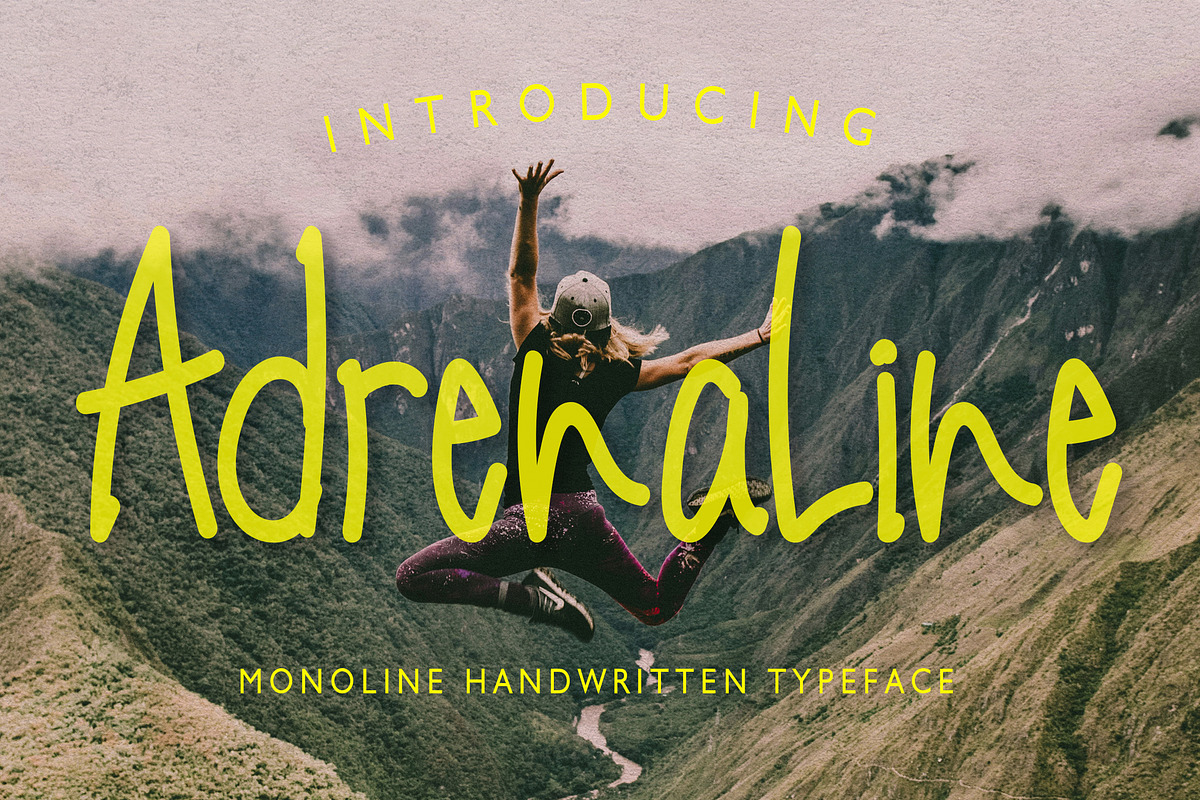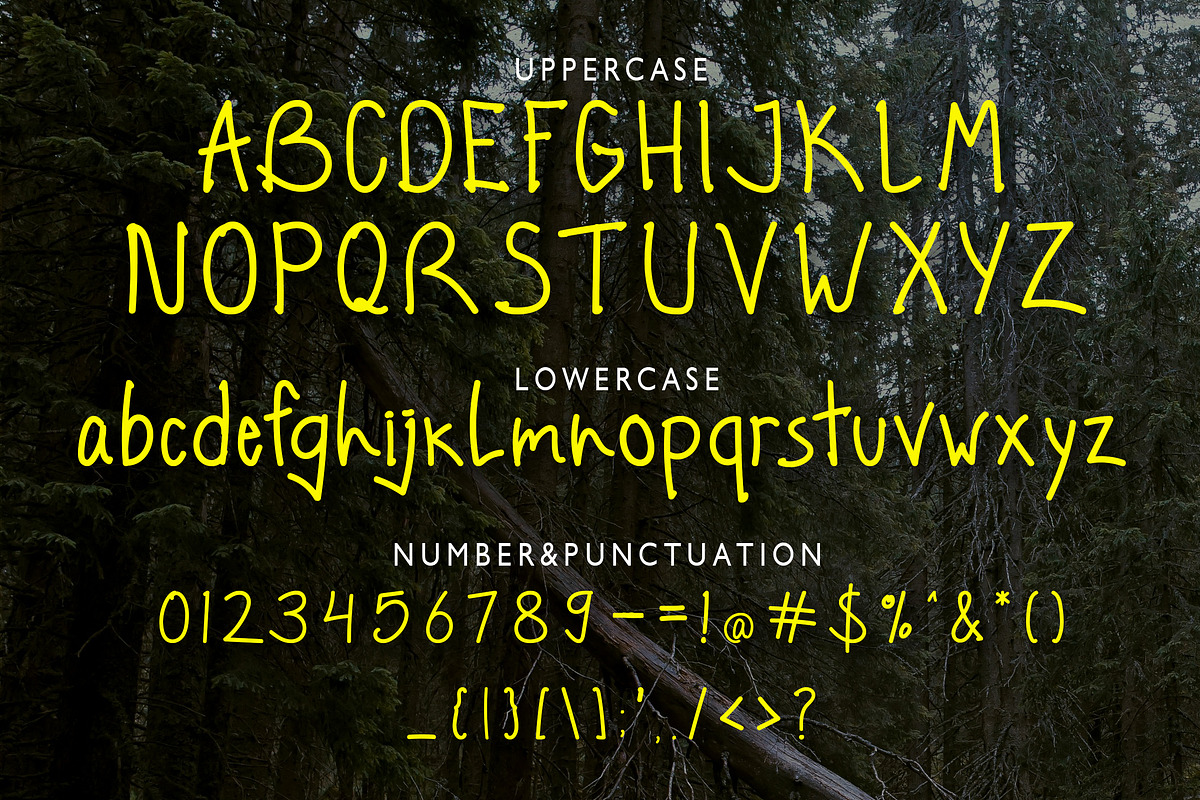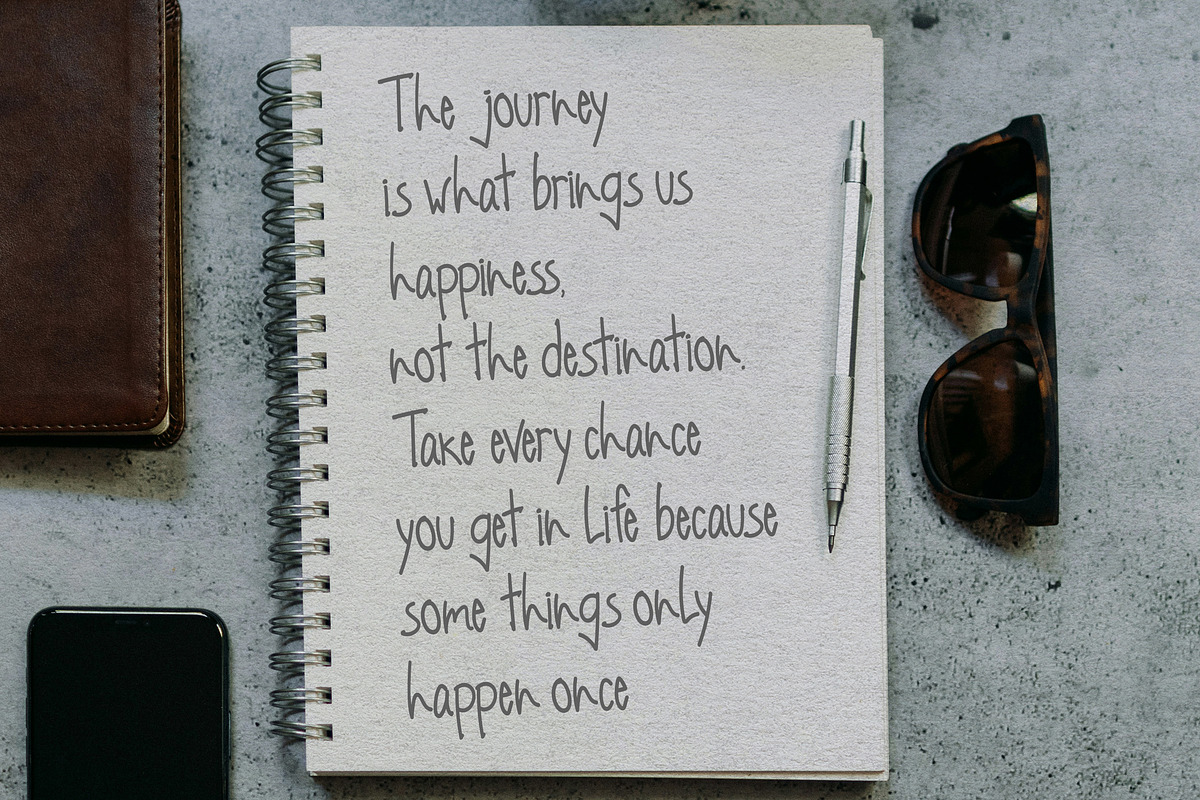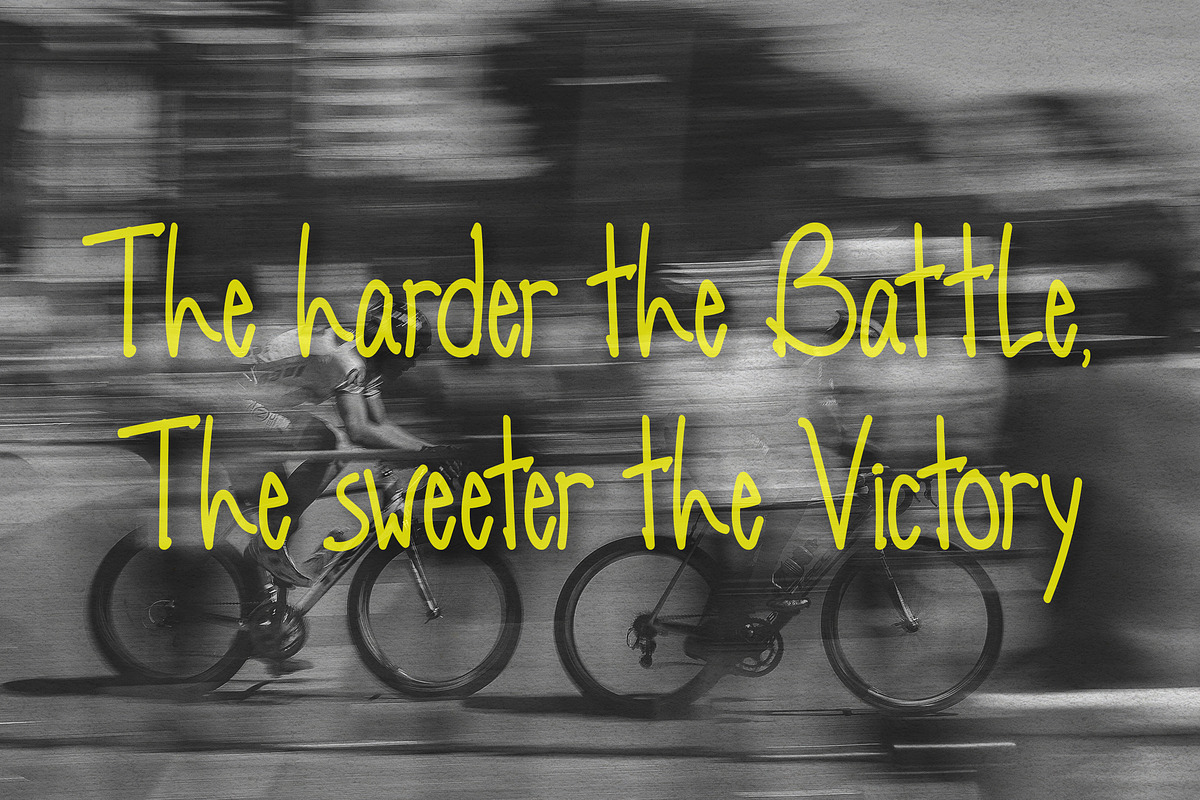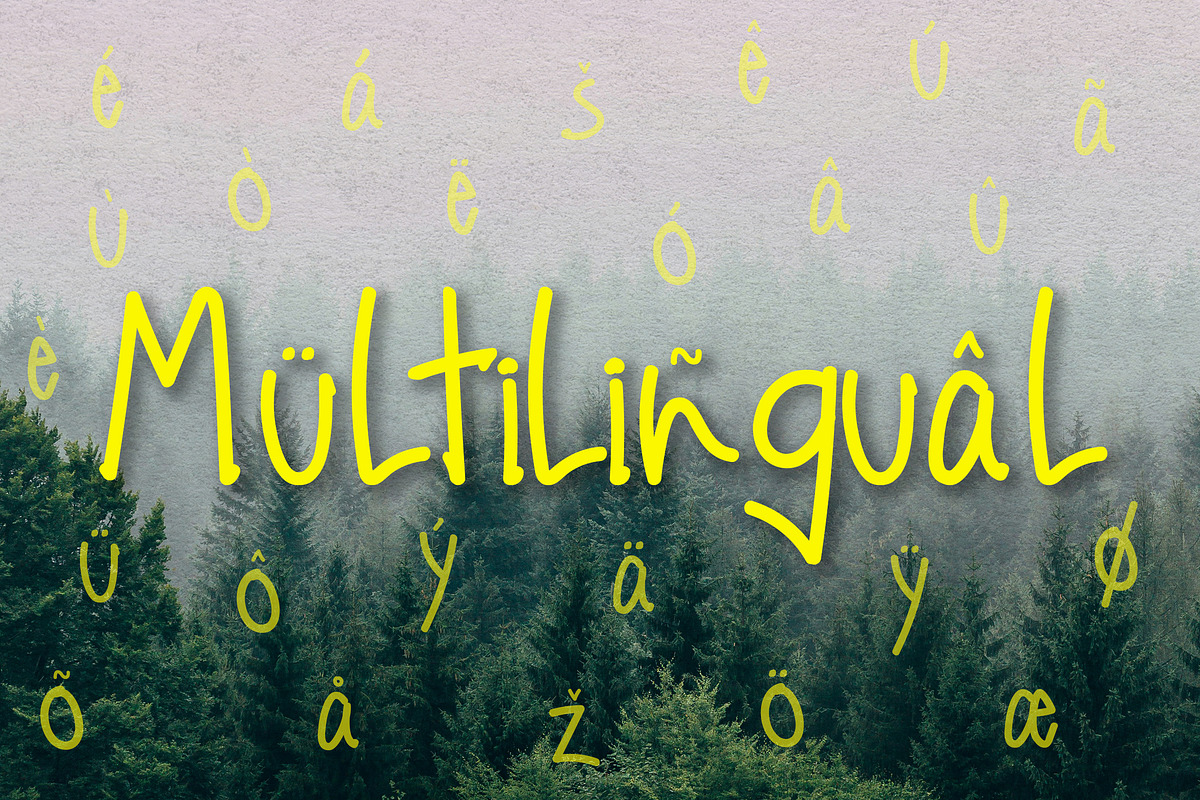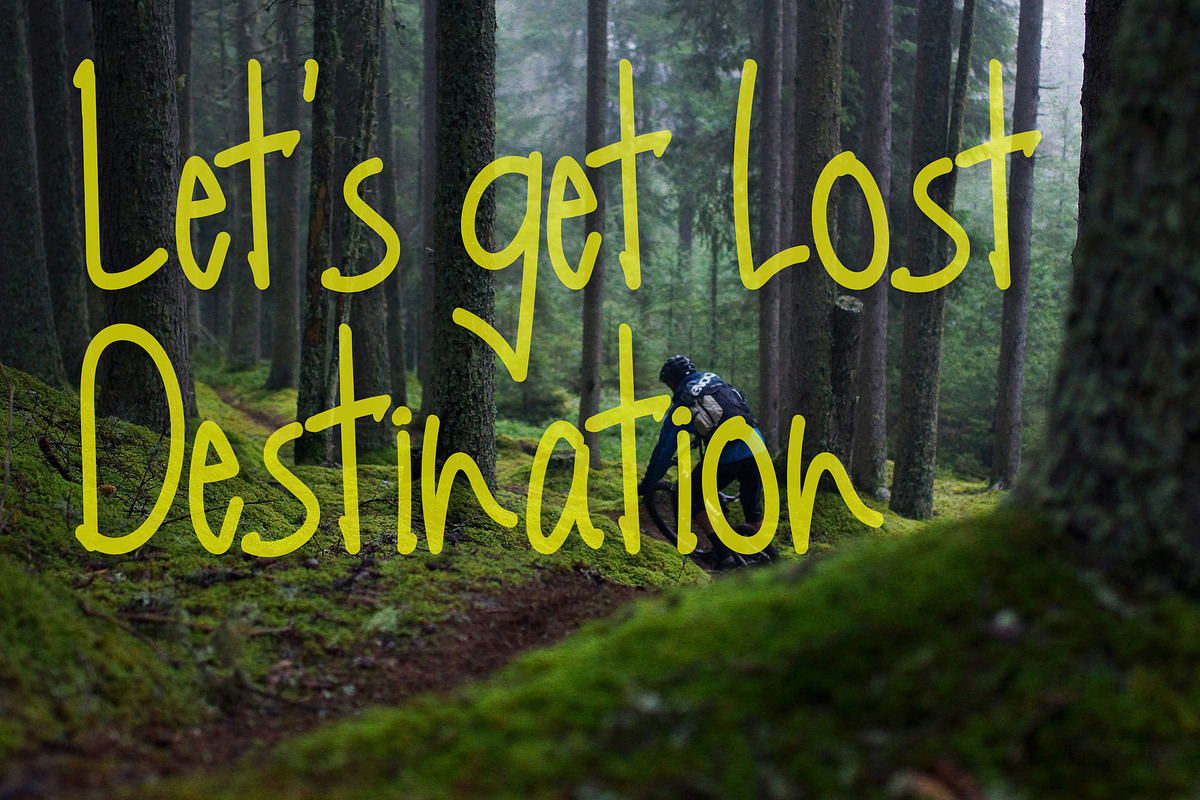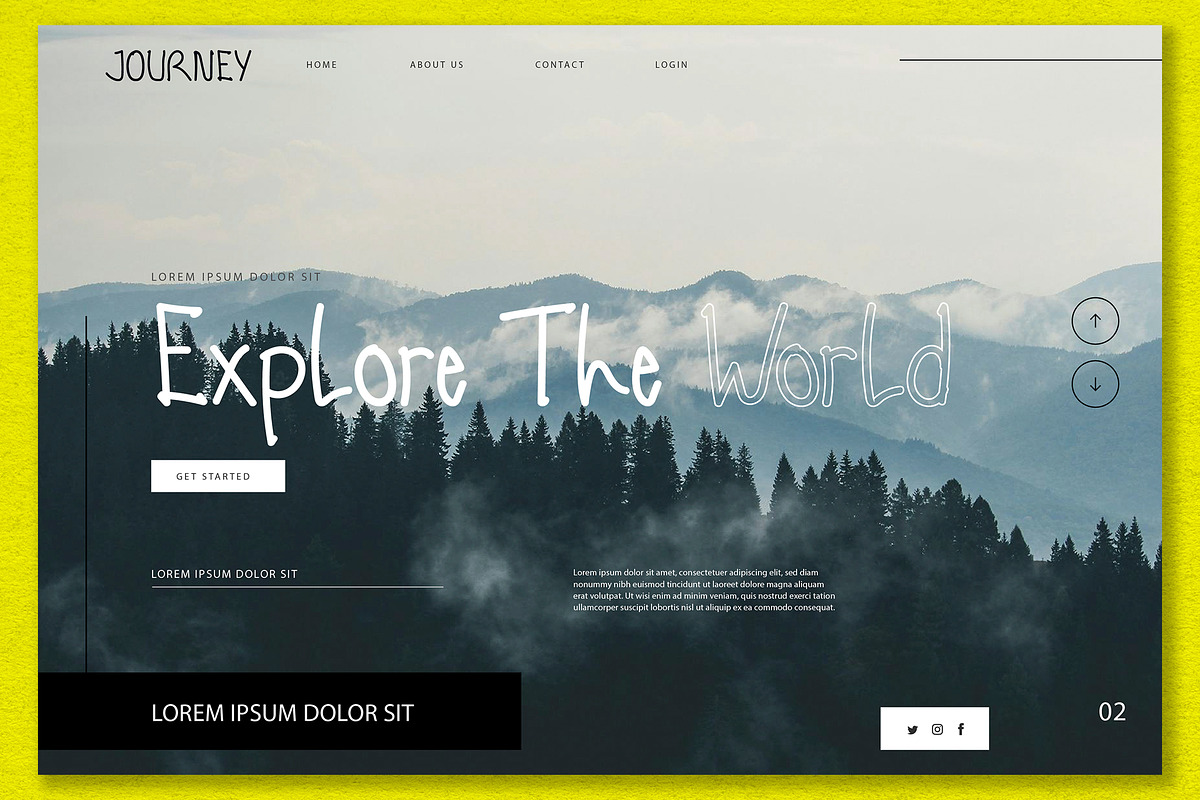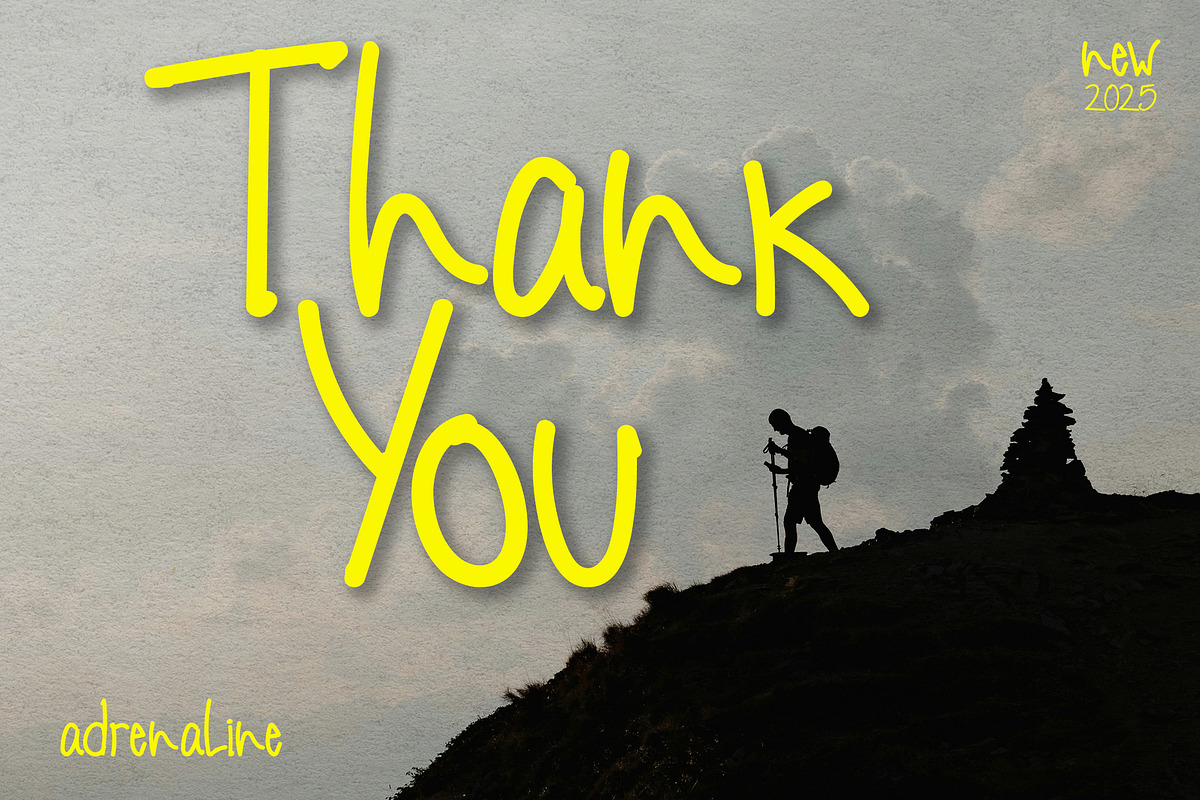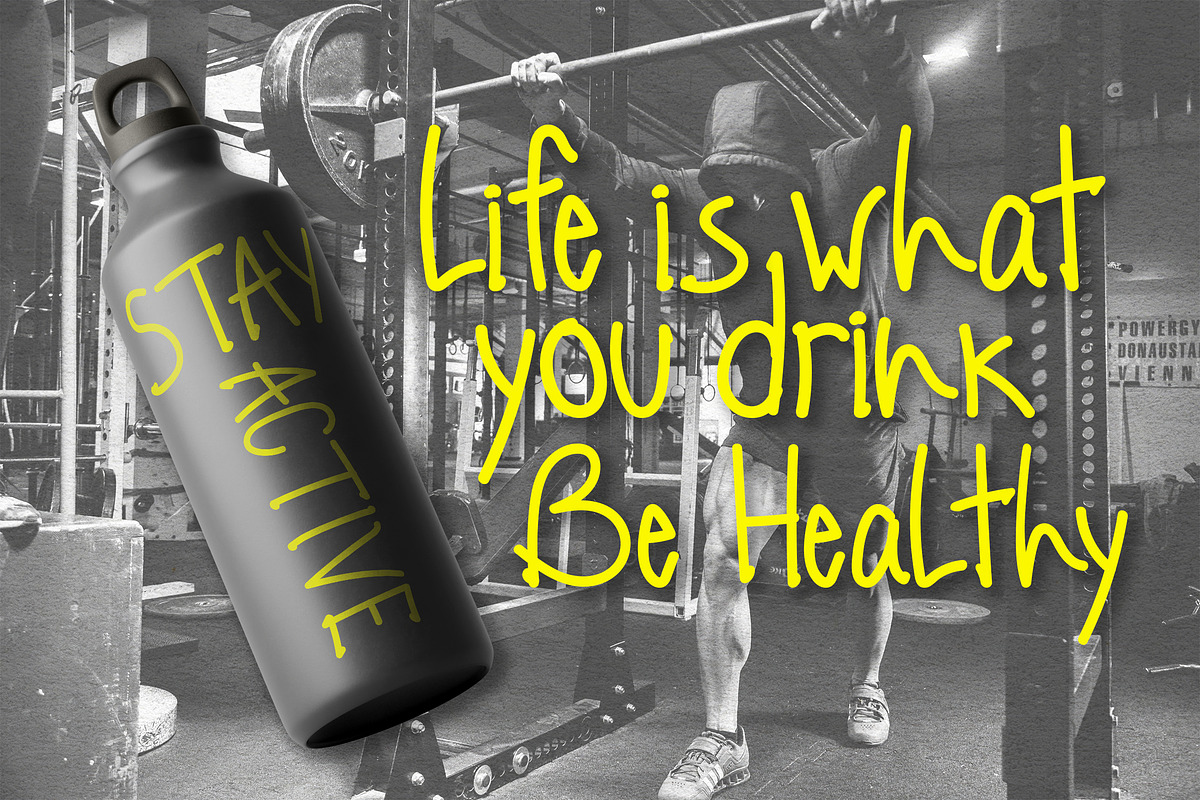
Adrenaline Monoline Handwritten
Adrenaline Monoline Handwritten Typeface this font for sport and adventure and all of artwork. font originaly handmade by Articreatype Studio Enjoy